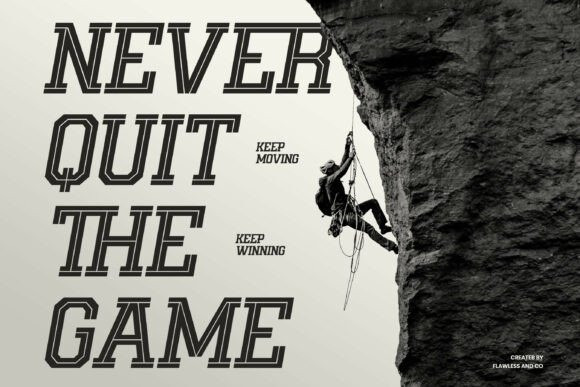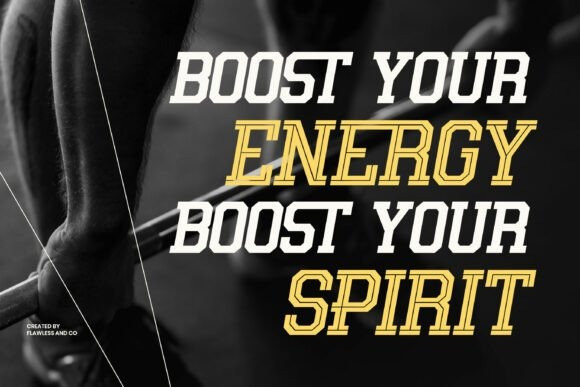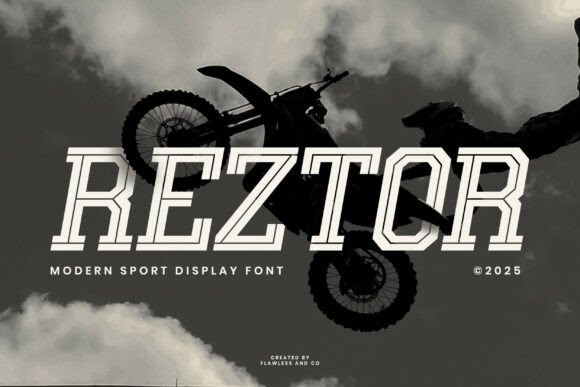
Reztor Font
Reztor Font is a powerful modern sport display font designed to ignite adrenaline in every design. With its sharp edges, bold structure, and strong angular personality, Reztor captures the spirit of competition, movement, and victory. Every letter is crafted to deliver intensity and performance, making it perfect for visuals that demand impact and confidence.